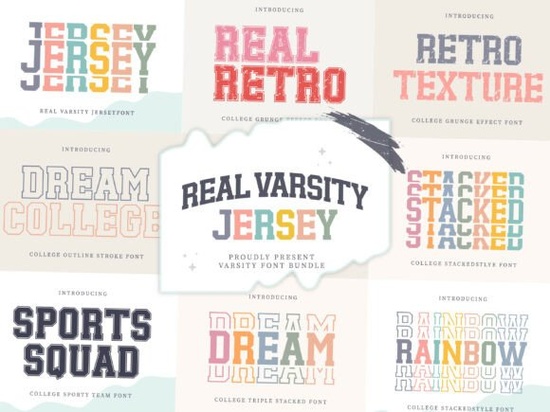
If you're looking for a way to add an authentic, collegiate feel to your designs, the Real Varsity Jersey Bundle Font is a fantastic choice. This font bundle offers a wide range of styles that can help you create everything from classic sports jerseys to vintage-themed merchandise.
Why Choose the Real Varsity Jersey Bundle Font?
The Real Varsity Jersey Bundle Font is perfect for anyone who wants to bring a touch of nostalgia and authority to their projects. Whether you're designing for a local sports team, creating high-school spirit wear, or adding a retro touch to your branding, this font bundle has it all. The collection includes a variety of styles, from clean and solid slabs to weathered, textured fonts that give a well-worn, vintage look.
Styles Included in the Real Varsity Jersey Bundle Font
- College Outline: A minimalist style that works well for a clean, modern aesthetic.
- Triple Stacked: A bold and eye-catching option that adds depth and rhythm to your typography.
- Retro Texture: A built-in distressed look that saves you time on post-processing and adds a nostalgic feel.
Each style in the Real Varsity Jersey Bundle Font is meticulously balanced to ensure maximum impact, whether you're using it for stadium scoreboards, digital social media graphics, or custom jersey numbering.
How to Use the Real Varsity Jersey Bundle Font
The creative flexibility of the Real Varsity Jersey Bundle Font makes it easy to layer and style different elements. Here are some tips on how to use it effectively:
- Layering: Combine different styles to create a unique, layered effect. For example, use the College Outline as a base and add the Triple Stacked style on top for a more dynamic look.
- Color Choices: Pair the fonts with vibrant team colors and classic crests to achieve a timeless, professional sports look. This combination not only looks great but also helps in building a strong brand identity.
- Customization: Use the Retro Texture version to add a touch of nostalgia without the need for extensive editing. This can be particularly useful for quick projects or when you want to maintain a consistent, vintage theme.